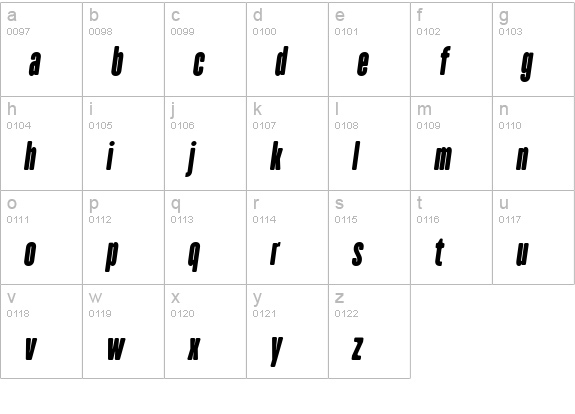
TT Bluescreens Round Black Ita Font Details
TT Bluescreens Round Black Ita is a maximum-weight, dramatic variant in the TT typeface family \xE2\x80\x94 well suited to maximum-impact headlines, posters, and packaging.
TT Bluescreens Round Black Ita font is a modern and sleek typeface that exudes a sense of edgy sophistication. With its bold and rounded design, this font is perfect for making a statement in any project. The italic styling adds a touch of elegance, making it versatile for a wide range of design applications. This font is available for free download at FontsMarket.com, where you can easily access this stylish typeface and elevate your design projects. Whether you're creating posters, logos, or branding materials, TT Bluescreens Round Black Ita font will bring a touch of contemporary flair to your work. Don't miss out on this fantastic opportunity to add a touch of modernity to your designs with this free font download.